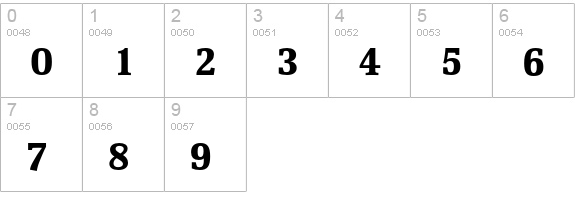
Scherzo Std Bold Font Details
Scherzo Std Bold is a strong, high-contrast variant in the Scherzo typeface family \xE2\x80\x94 well suited to headlines, attention-grabbing titles, and strong calls-to-action.
Scherzo Std Bold is an exquisite and captivating font that effortlessly combines elegance with a touch of playfulness. This bold typeface possesses a unique charm that is bound to catch the eye and leave a lasting impression. Its sleek and modern design makes it perfect for a wide range of creative projects, from branding and logo design to advertising and packaging. With its strong and confident letterforms, Scherzo Std Bold commands attention and adds a touch of sophistication to any design. Its carefully crafted curves and sharp angles create a harmonious balance that is visually pleasing and easily legible. Whether used for headlines, subheadings, or body text, this font ensures clear communication and adds a touch of personality to your projects. One of the most appealing aspects of Scherzo Std Bold is that it is freely available to download at FontsMarket.com. This means that you can access this exceptional font without any cost or restrictions. Embrace the freedom to enhance your designs with this remarkable font and unlock its full potential in your creative endeavors. Its versatility and wide range of possible applications make it a valuable asset for designers, marketers, and creatives alike. In conclusion, Scherzo Std Bold is a visually striking font that combines elegance and playfulness effortlessly. Its bold and confident presence adds a touch of sophistication to any design project, while its freely available download at FontsMarket.com ensures accessibility for all. Embrace the freedom to enhance your designs with this exceptional font and unlock its full potential in your creative endeavors.